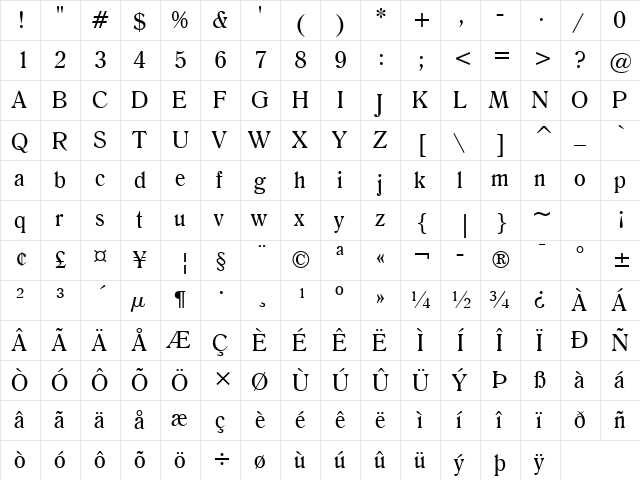
Romana BT Roman
Design Context for Romana BT Typeface
Romana BT offers clean, dependable letterforms without strong stylistic allegiance, making it a practical choice for designers who need flexibility.